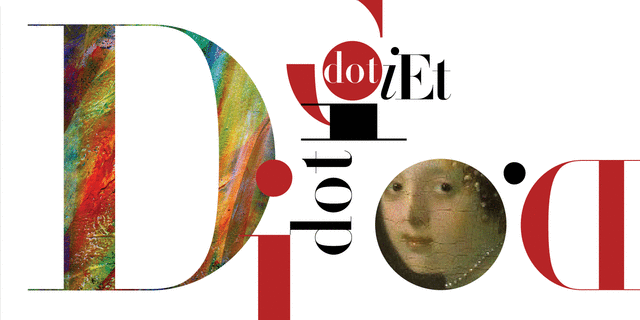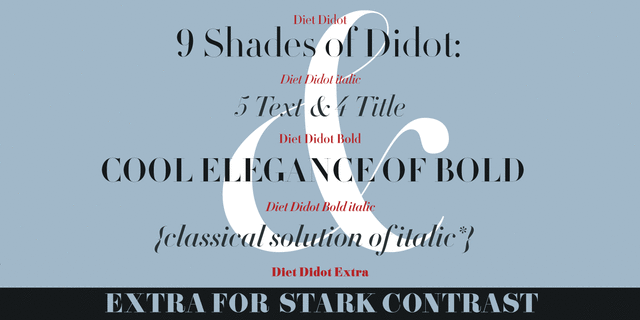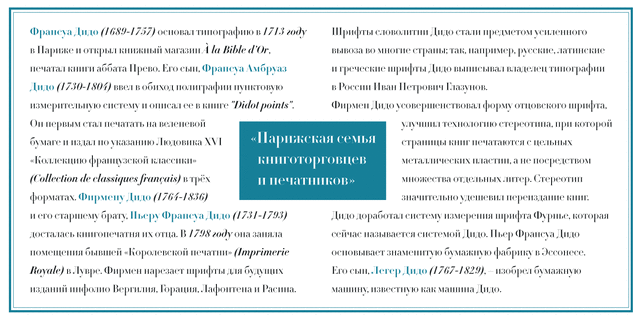
DietDidot (9 fonts)
About DietDidotThe typeface was designed at Double Alex Font Studio by Alexey Chekulaev in 2006 based on Dido by Firmin Didot, 1799.
Associations for font family DietDidotTypeface personality and character:
flat, rich, classic, cultured, aristocratic, salon art, solemn, voiced, static, noble, accurate, masterful, artistic, refined, musical, beautiful, brilliant, luxurious, expensive, elite, traditional, high-quality, cultural, aesthetically beautiful, famous, precious, select, spectacular, fashionable, comme il faut, sharp, romantic, original, glossy, jewelry, historical, proud, silver, theatrical, dramatic, creative, sexy, Glamorous, polite, notable, splashy, convincing, passionate, heavy, strong, ambitious, thin